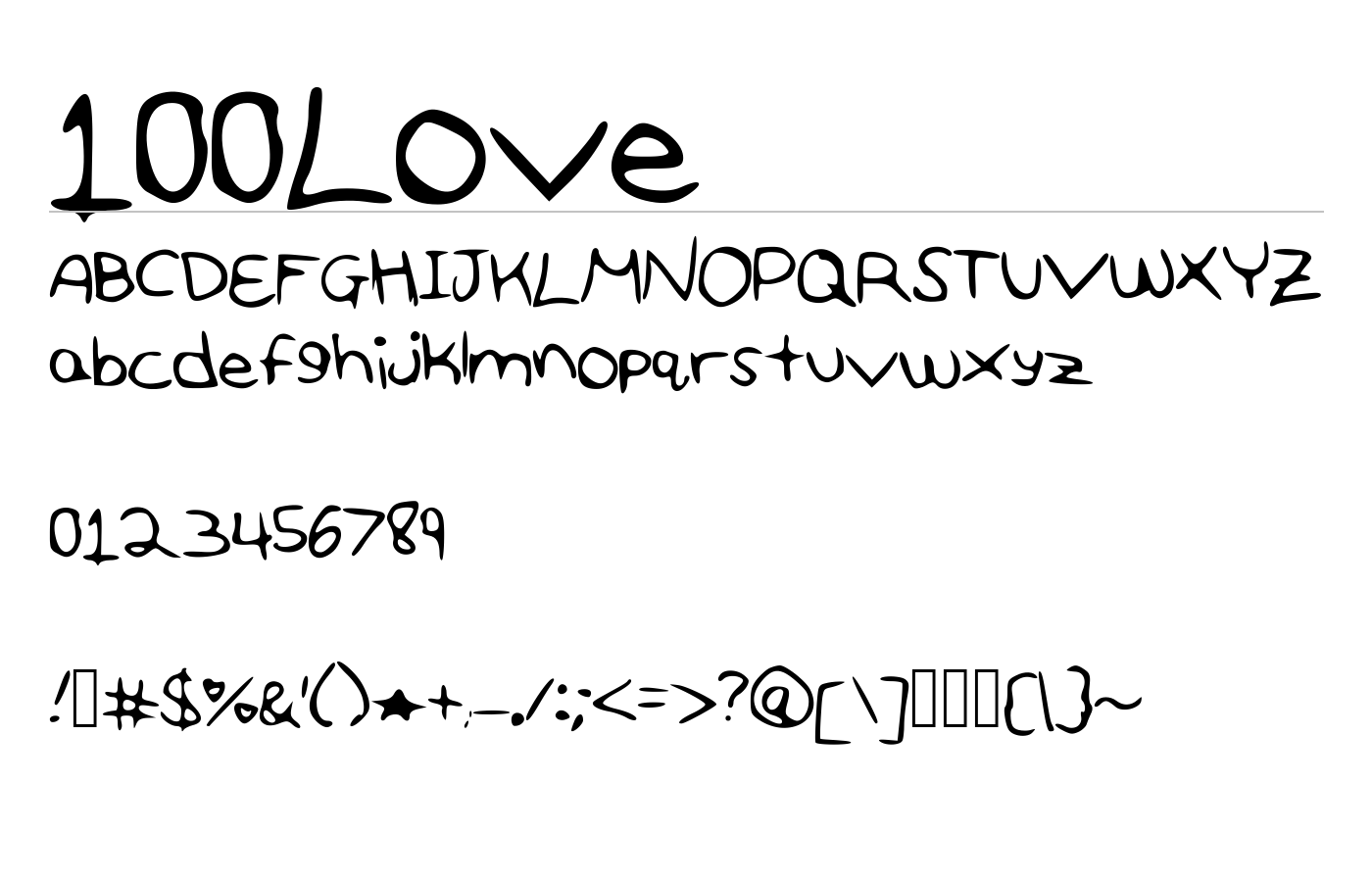
100Love Font is a playful and quirky handwritten sans serif typeface with irregular, organic shapes that give it a friendly and casual feel. Its light weight and variable stroke width create a hand-drawn, approachable style perfect for informal, creative projects like children’s books, casual branding, and fun editorial layouts. This font works best in settings where personality and a human touch are desired, adding charm and warmth to headlines, packaging, and invitations.
100Love Font